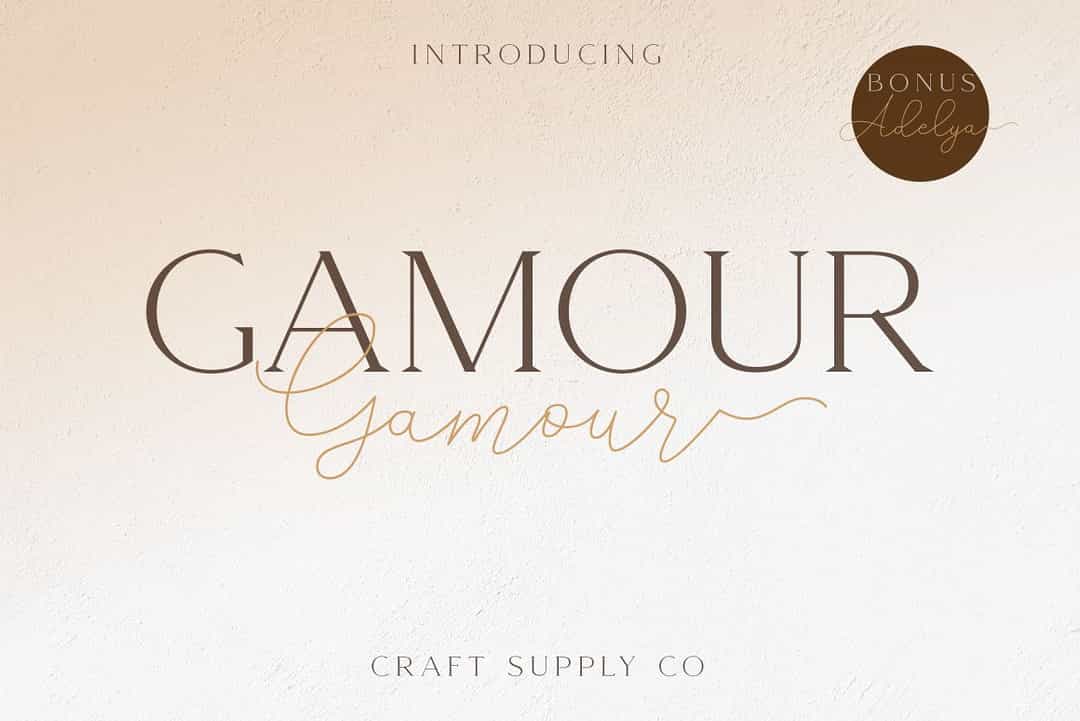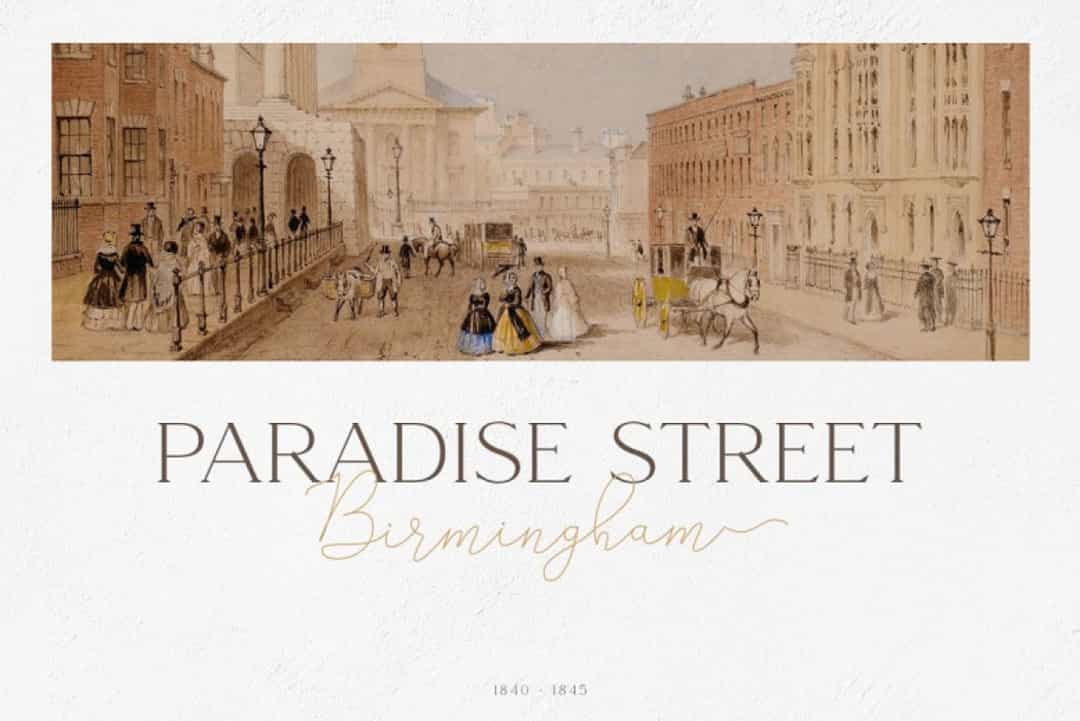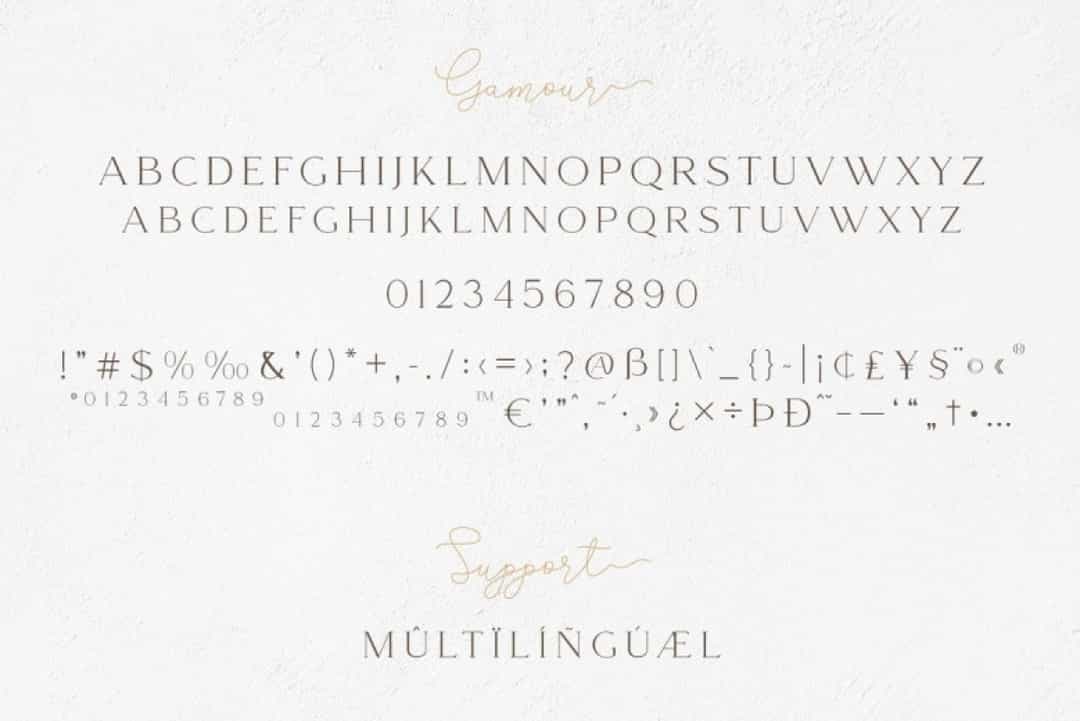
Gamour can be described as an elegant serif font family that is inspired by modern serif font design. What sets Gamour apart is the minimal contrast between strokes slightly rectangular designs of round characters as well as its emphasis on businesslike simplicity.